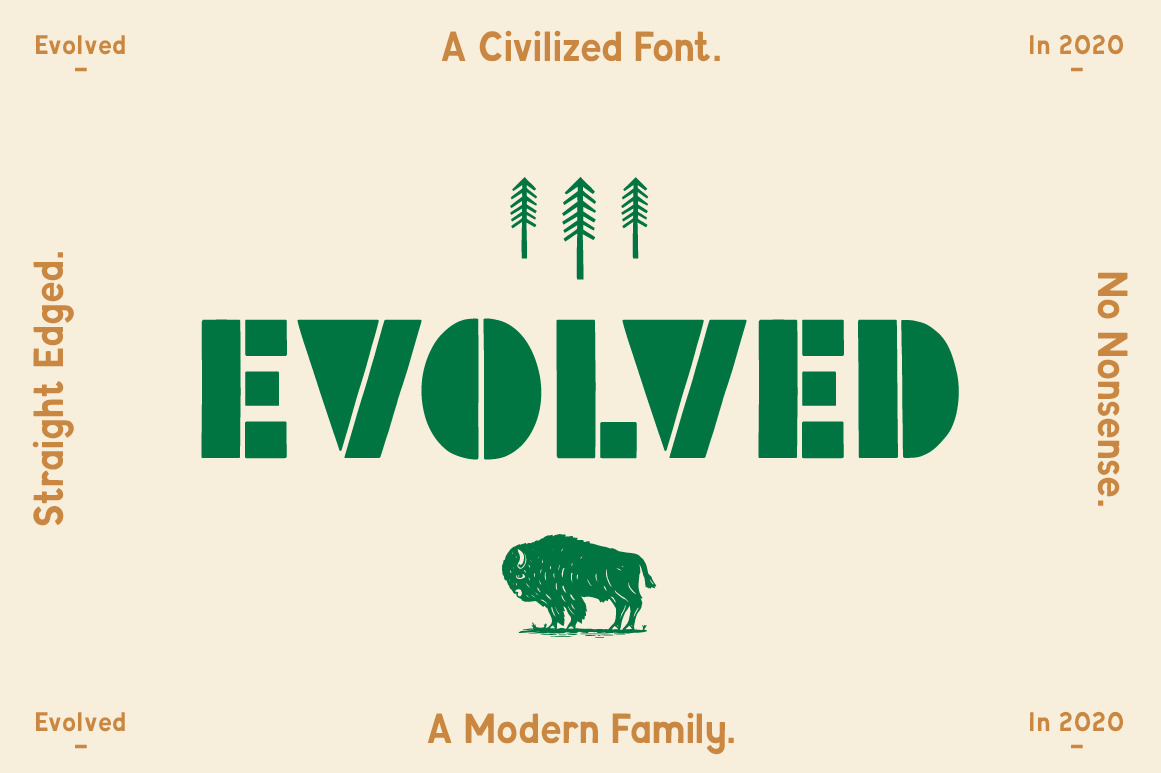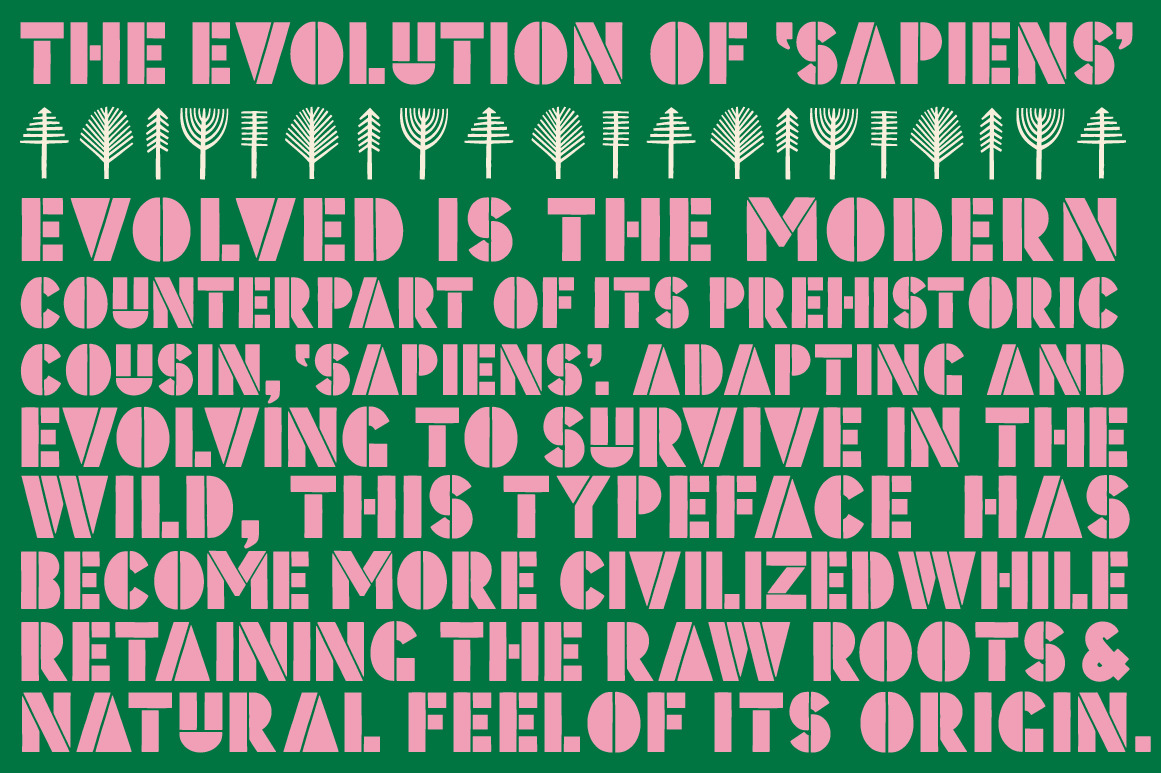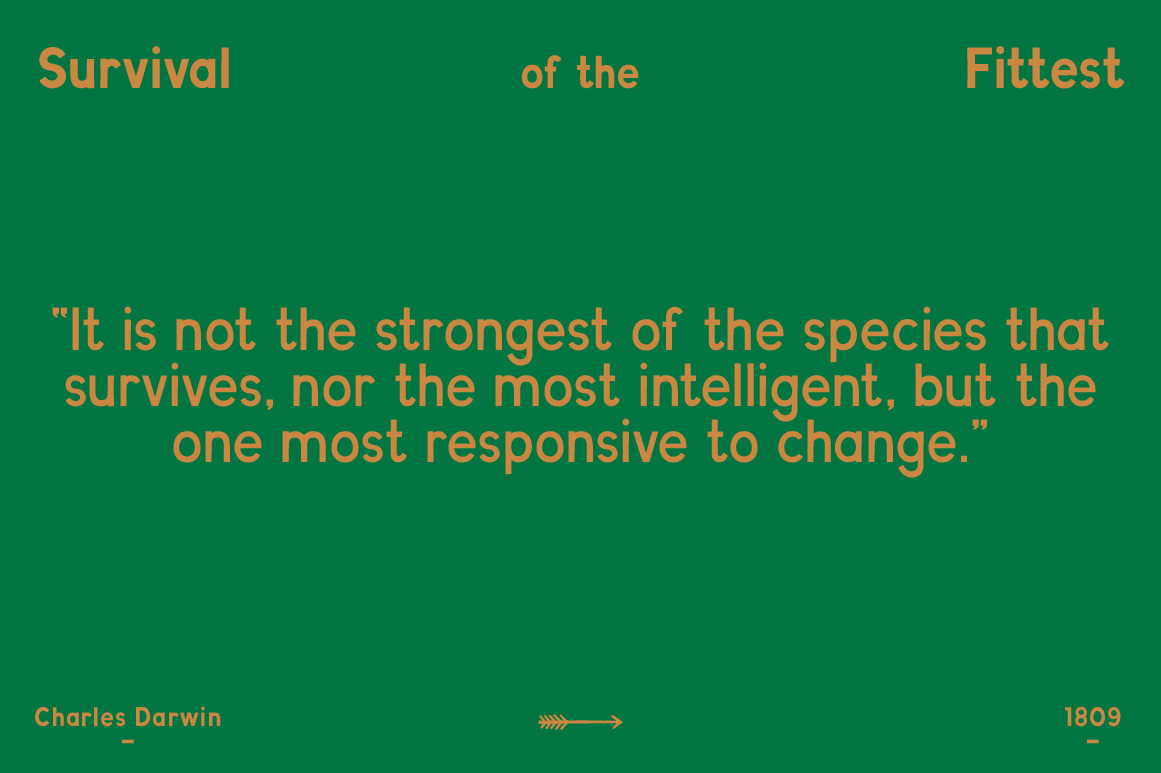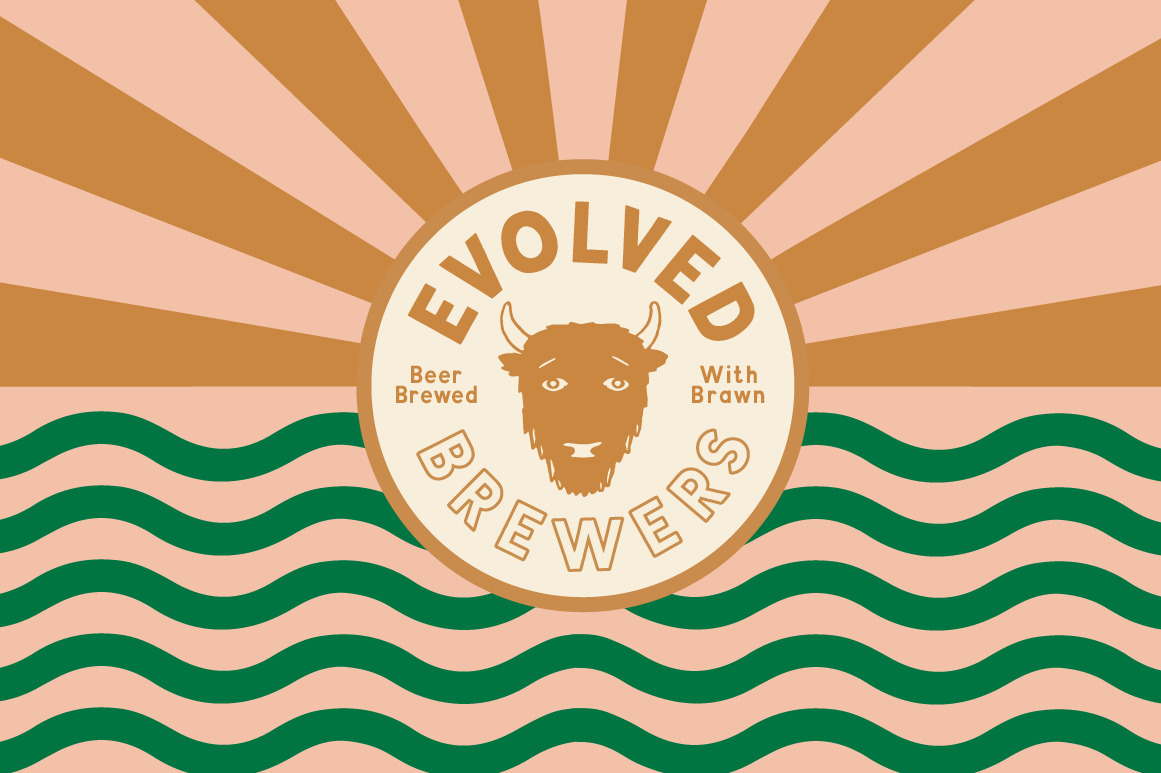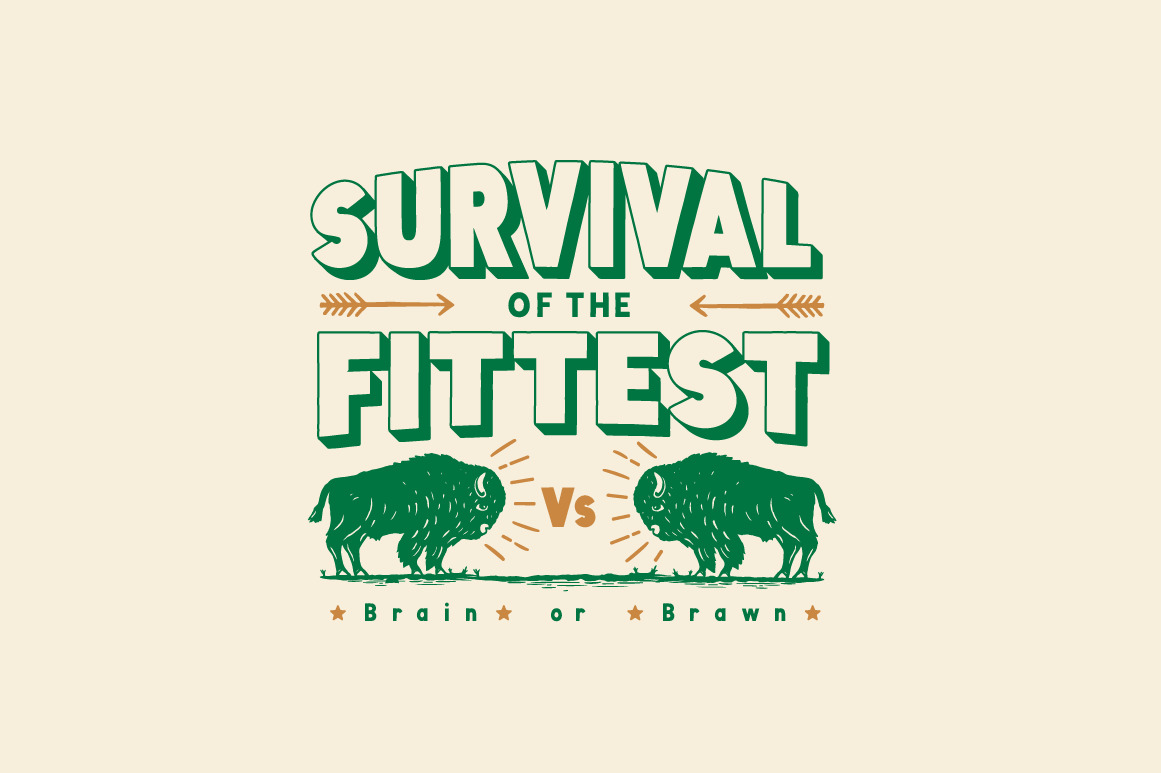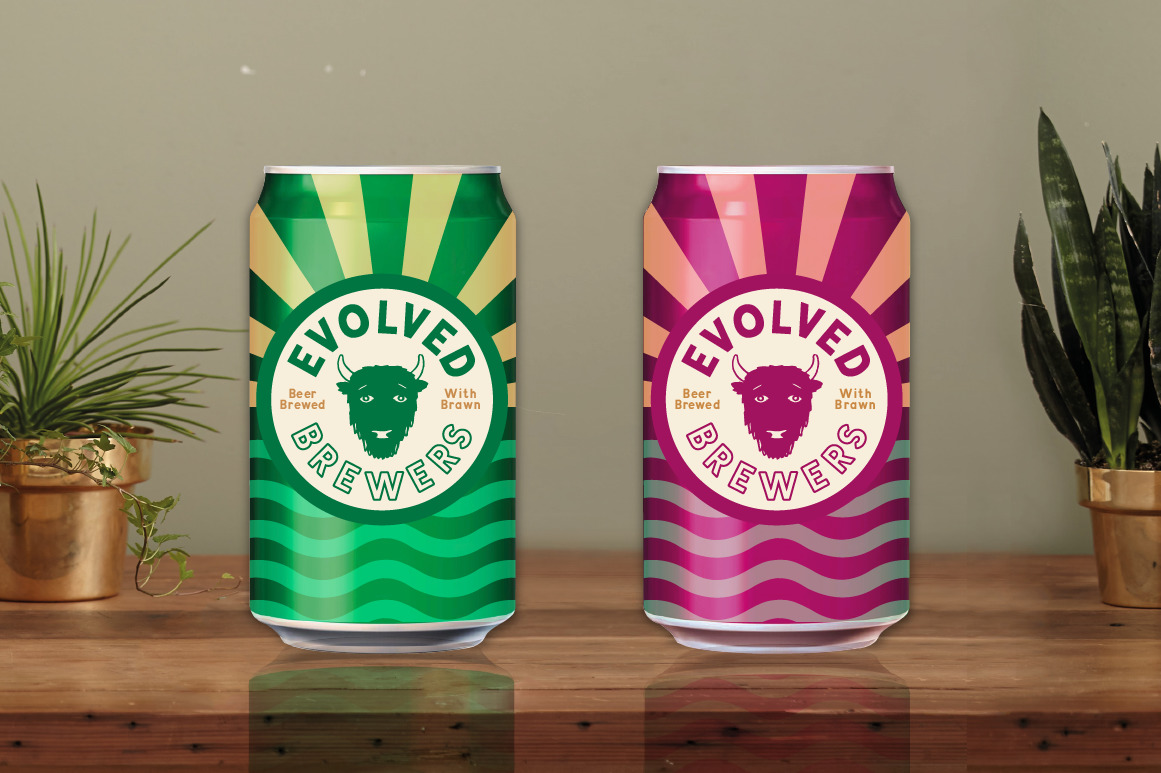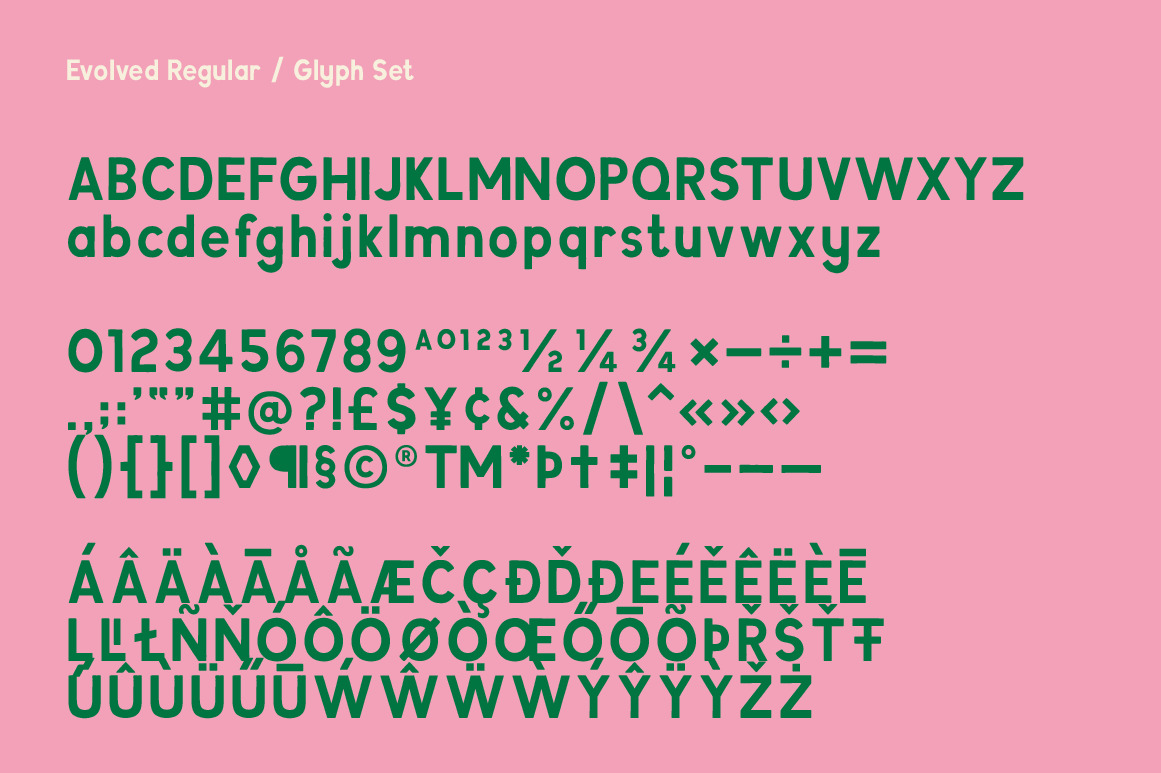
Evolved Font Family
Evolved is the modern counterpart of its prehistoric cousin, ‘sapiens’. The letterforms have adapted and evolved to fit in a more modern space – this typeface has become more civilized but retains the quirks and character of its predecessor.
Block, Regular and Light styles are available.